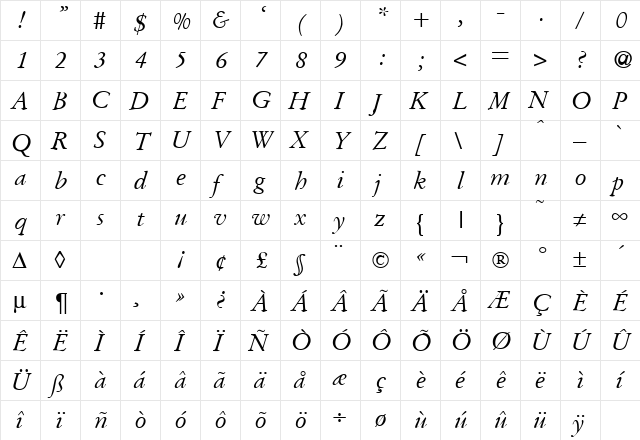
GaramondOriginal RegularItalic
Design Context for GaramondOriginal Typeface
GaramondOriginal takes a measured approach to typography — its balanced proportions and neutral character make it a reliable workhorse for both digital and print work. The dynamic lean of this cut emphasises speed and emphasis in any layout.
Pro Tip: Try GaramondOriginal for annotation and caption copy alongside an upright companion — the contrast in angle creates a dynamic but ordered typographic system.